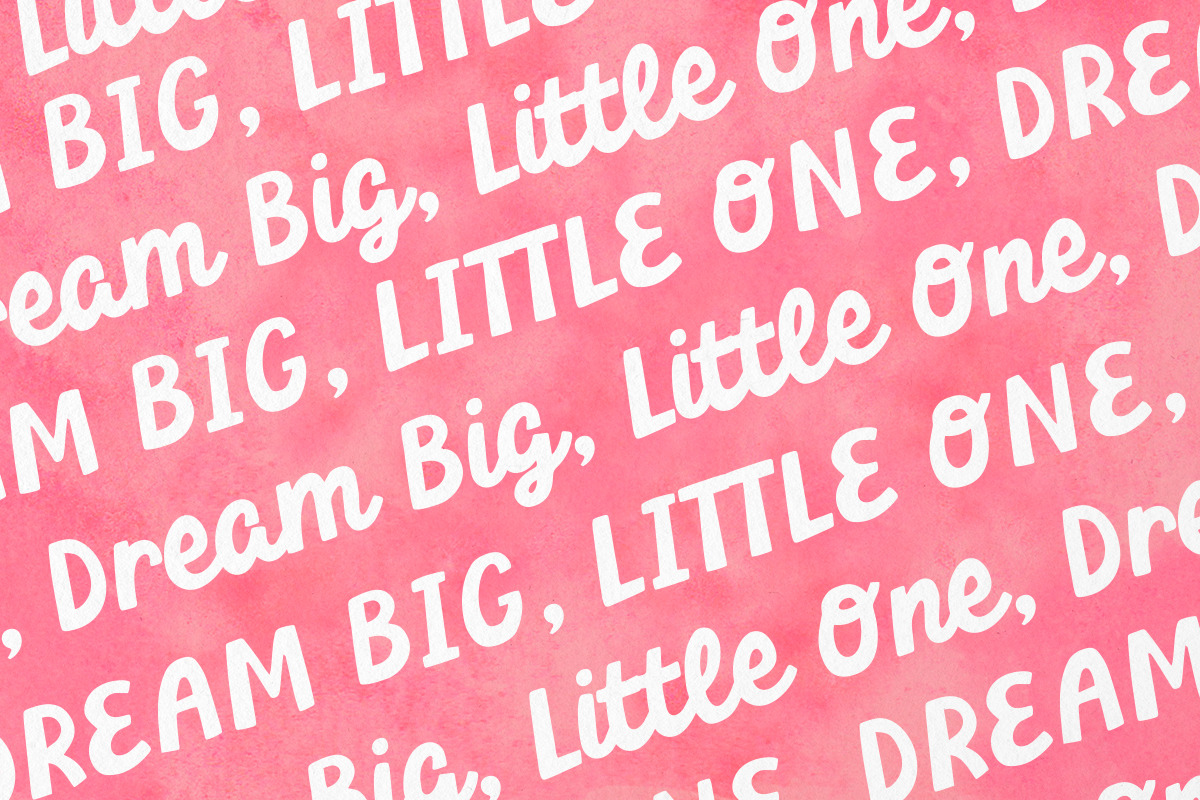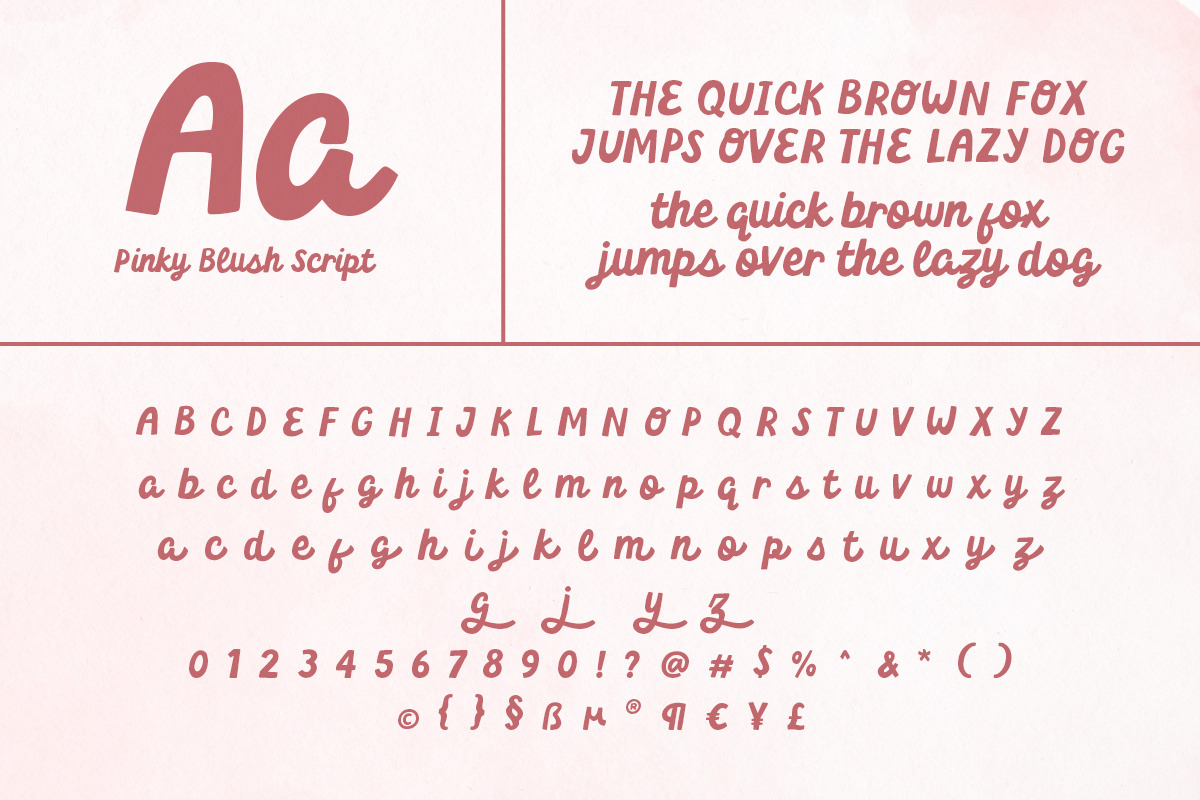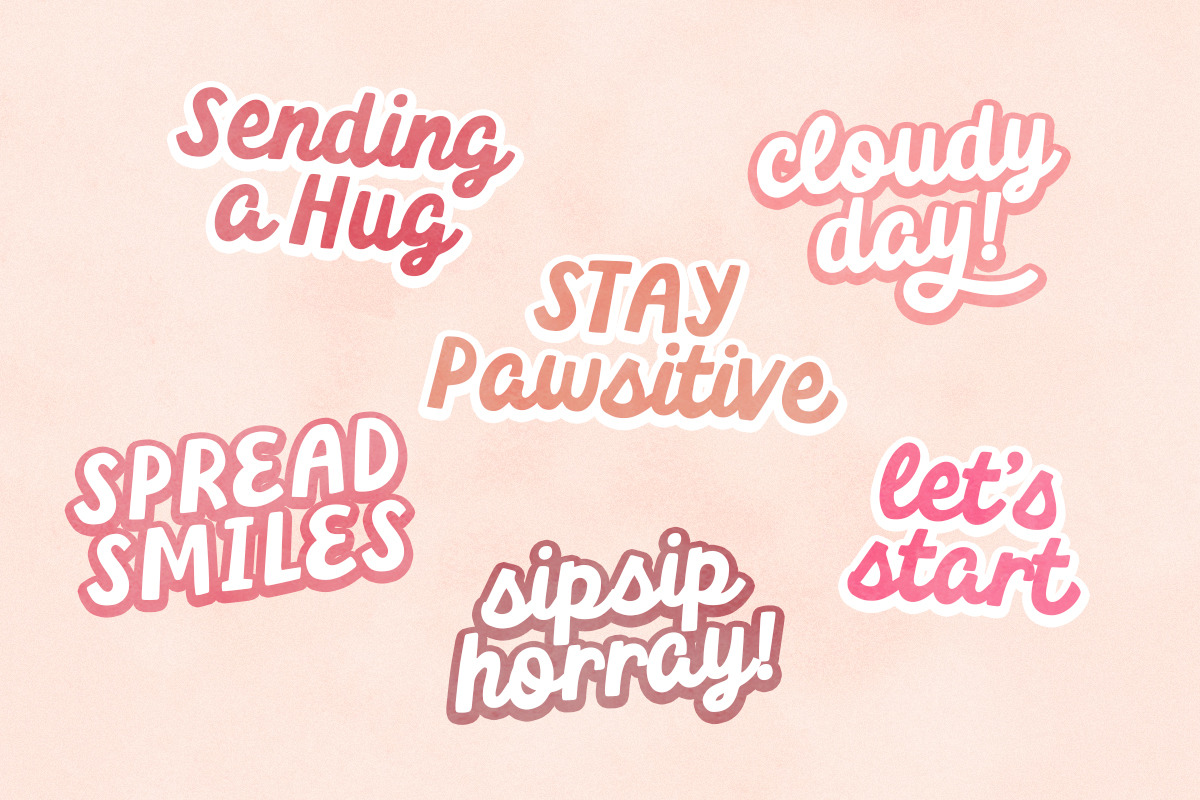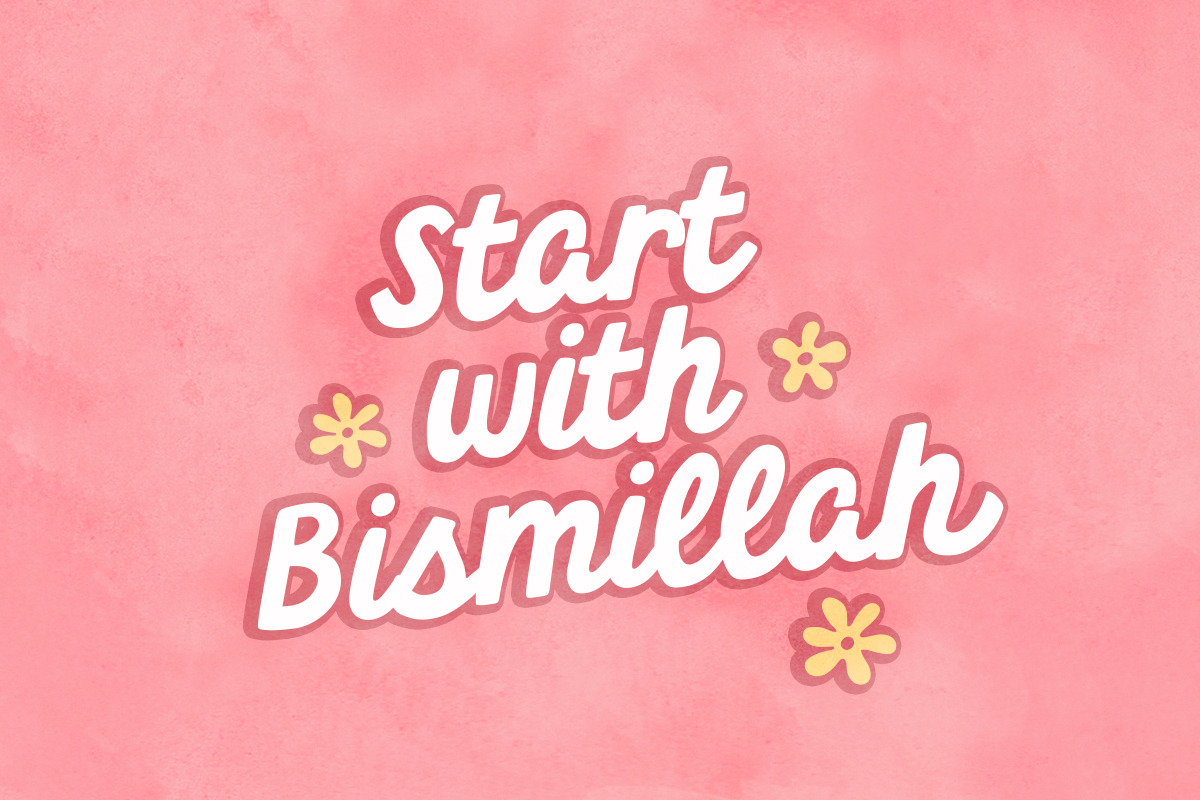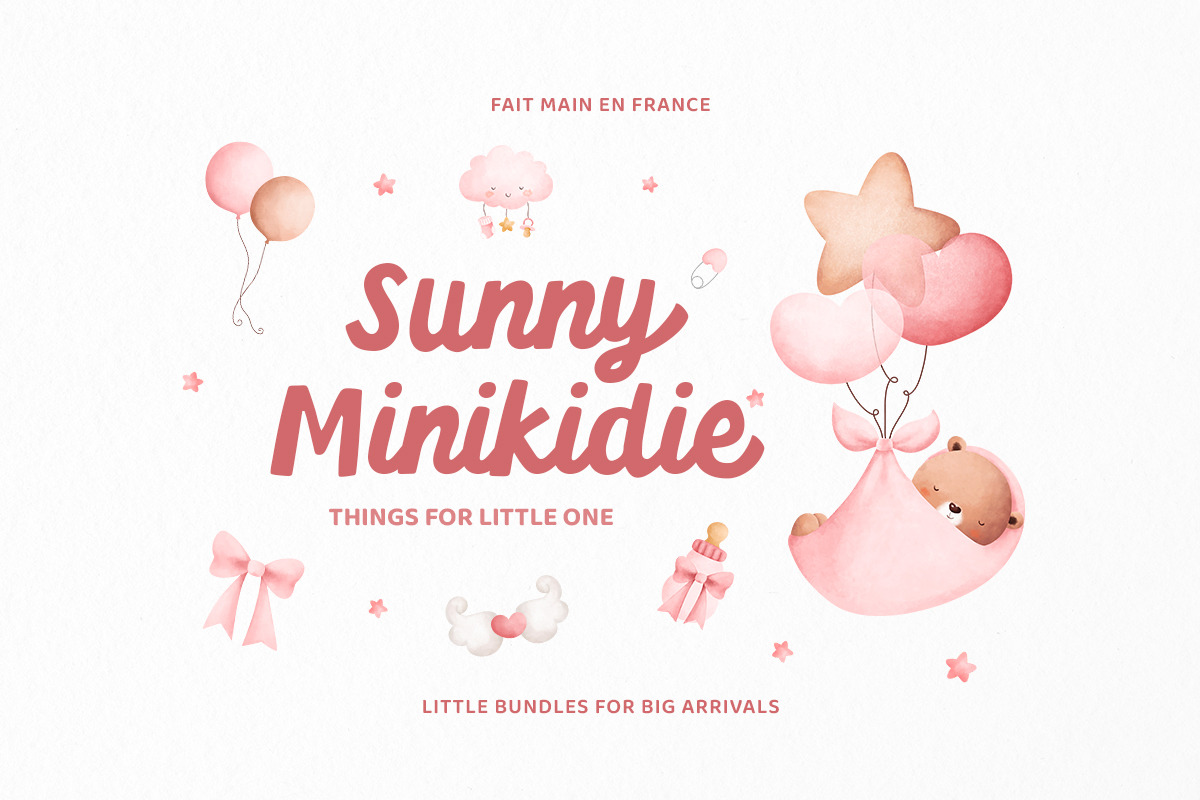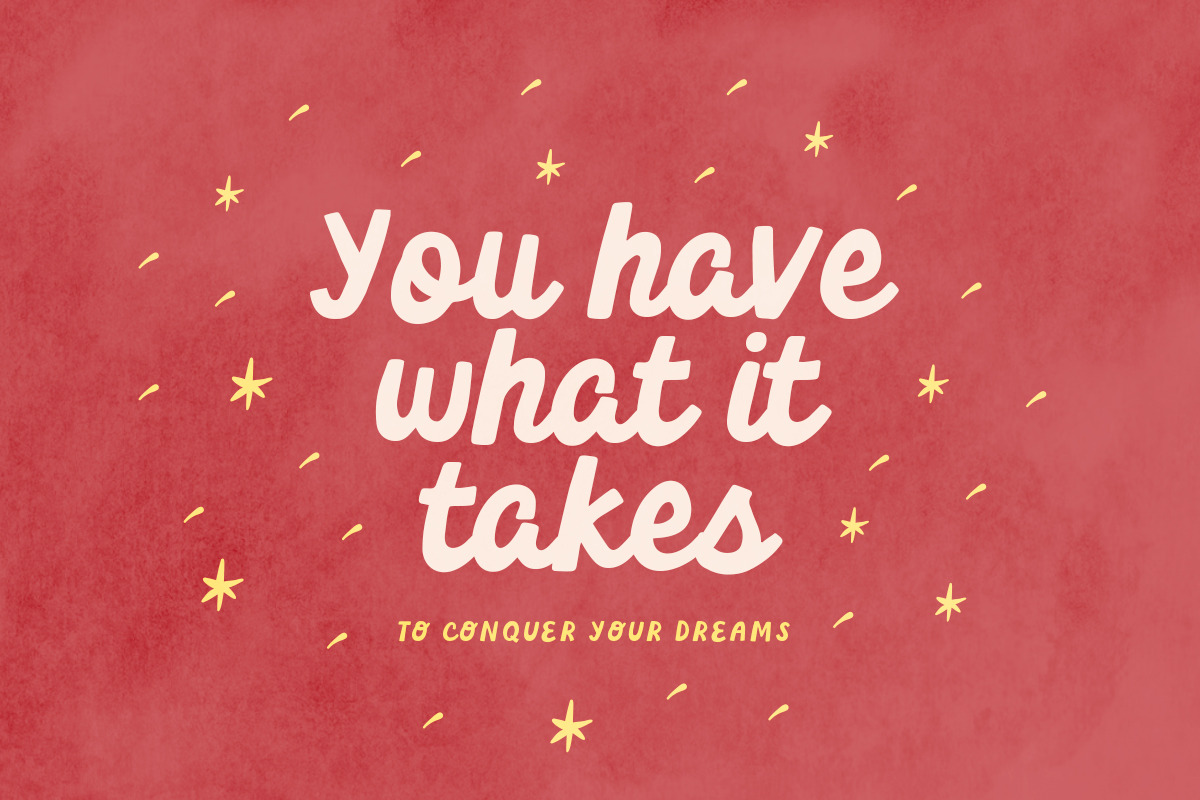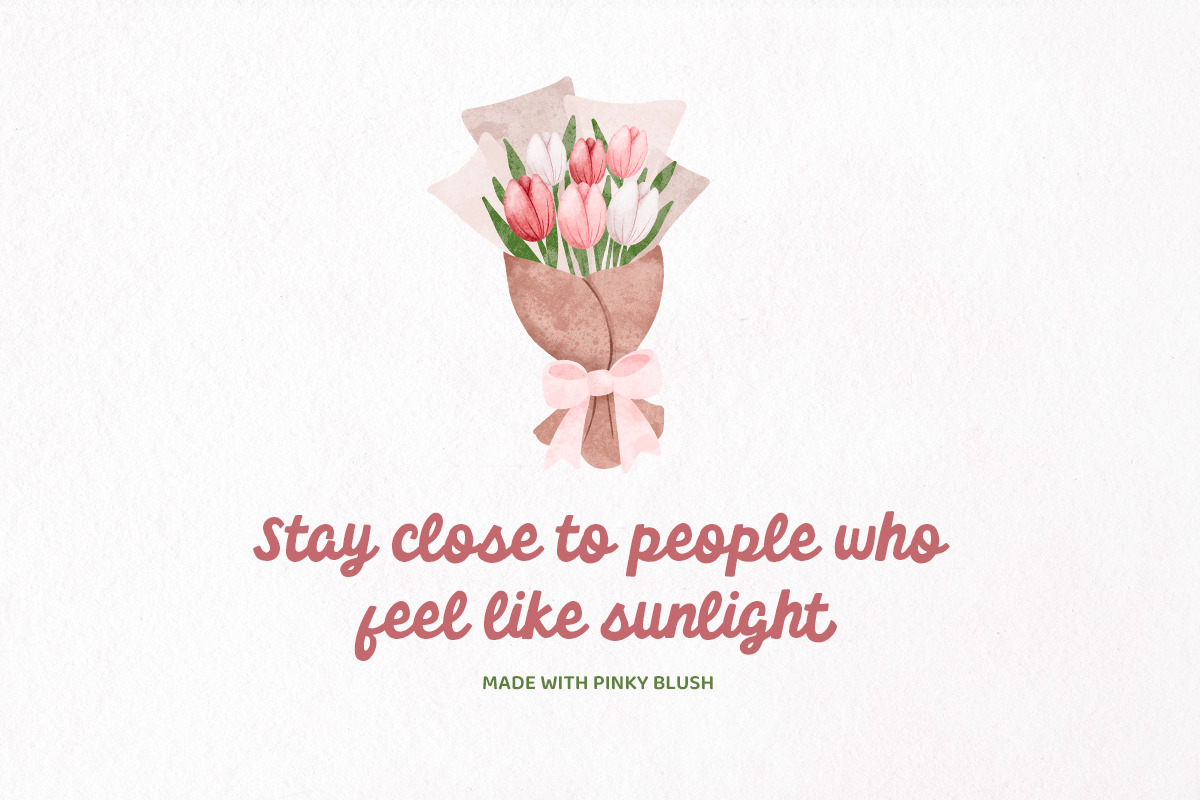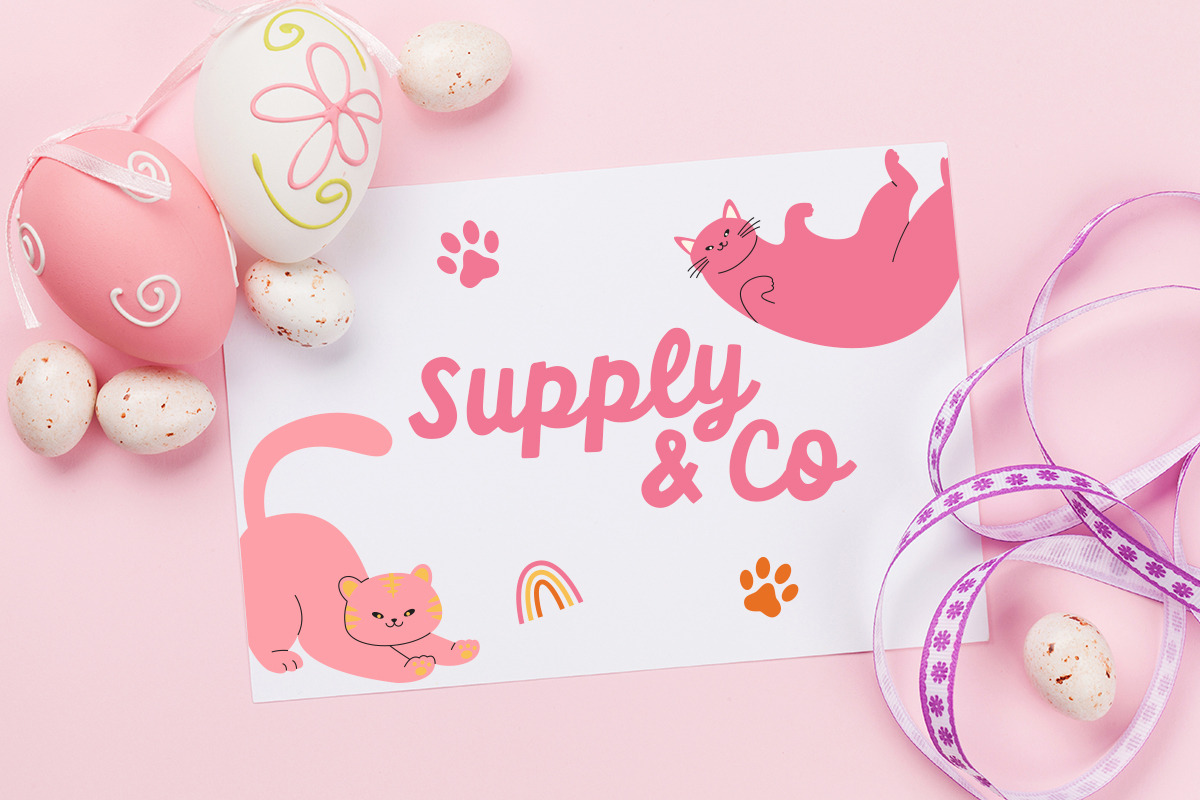
Pinky Blush - Cute Bold Script
Pinky Blush is a charming script font that blends playful sans serif elements with a friendly script style, all in one typeface. Both lowercase and uppercase letters work beautifully on their own, giving you flexibility while maintaining a cohesive look. It offers the feel of a complementary font duo, making it perfect for a variety of uses, including quotes, logos, book covers, and more. Plus, Pinky Blush supports multiple languages, ensuring versatility across different projects.